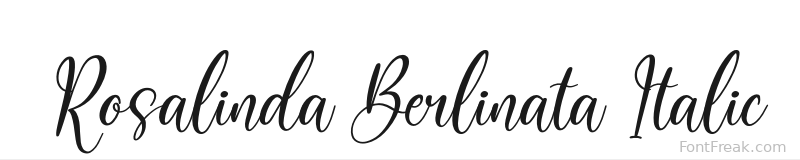
Rosalinda Berlinata Italic
About Rosalinda Berlinata Italic
Rosalinda Berlinata Italic, designed by Perspectype Studio, is a captivating script font that seamlessly combines elegance with a contemporary flair. This font is categorized as a script type, characterized by its fluid, cursive letterforms that exhibit a dynamic and graceful flow. The stroke weight varies throughout the typeface, creating a pleasing contrast that enhances its visual appeal. The letters are well-spaced, ensuring readability while maintaining a sophisticated look. Decorative elements, such as elegant swashes and loops, add an artistic touch, making this font perfect for a variety of creative applications.
The Rosalinda Berlinata Italic font is particularly well-suited for wedding invitations, where its romantic style can set the tone for a special day. It also shines in branding for boutique businesses, offering a stylish representation that can elevate a logo or packaging design. Additionally, this font works beautifully for restaurant menus, giving a touch of sophistication to the dining experience. Content creators will find it ideal for social media graphics and promotional materials, where eye-catching typography is essential to capture attention.
Targeting graphic designers, small business owners, and content creators alike, Rosalinda Berlinata Italic is versatile enough to meet diverse needs. Its unique aesthetic allows users to infuse personality and charm into their projects, making them stand out in a crowded marketplace.
In summary, the Rosalinda Berlinata Italic font free download offers an exquisite balance of elegance and modernity, making it a must-have for anyone looking to enhance their design work. Its distinctive style and versatility ensure that it remains a favorite choice for a broad audience, providing an opportunity to create memorable and visually stunning designs.